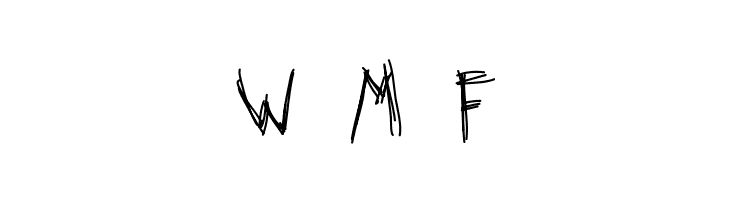
( Fonts by www.lars-manenschijn.nl )
A bold, brushstroke-style font with a dynamic and artistic appearance.
( Fonts by Dave Kellam - Brian Stuparyk - www.eightface.com )
A bold, distressed font with a fiery, energetic style.
( Fonts by Greg Meronek - GregoryFonts )
A bold, playful font with a hand-drawn, dynamic style.
( Fonts by Andrew Hart - dirt2.com )
A bold, playful font with a hand-drawn, informal style.
( Fonts by Jens R. Ziehn - www.filmhimmel.com )
A bold, jagged font with a retro, sci-fi aesthetic and dynamic energy.
( Fonts by www.waltervelezart.com )
A bold, angular font with a lightning-like, energetic design.
( Fonts by Harold Lohner - www.haroldsfonts.com )
A bold, playful font with high contrast and unique negative space design.
A bold, dynamic font with tilted characters enclosed in squares, offering a modern and playful style.
A bold, heavy oblique font with a dynamic and energetic style.
A bold, italicized font with a modern and energetic style.
A bold, italic font with rounded, smooth characters and a dynamic style.
A bold, condensed italic font with angular lines and dynamic style.
A bold, offset oblique font with a dynamic, three-dimensional style.
( Fonts by Steve Ferrera )
A bold, medieval-inspired font with dynamic, twisted characters.
A dynamic and expressive italic font with sharp, angular edges and varying stroke thickness.
A bold, cursive font with a playful and energetic style.
( Fonts by Thomas Ledin - tomledin.com )
A sketch-like, hand-drawn font with an energetic and expressive style.
( Fonts by www.junkohanhero.com )
A chaotic, grunge-style font with splattered, energetic brushstrokes.
( Fonts by Tom Raaijmakers )
A bold, handwritten marker-style font with a casual, dynamic look.
A bold, shadowed font with a playful, three-dimensional style.
( Fonts by Miguel Rios - miguelrios.com.mx )
A bold, handwritten font with an energetic and playful style.
A playful, casual handwritten font with a youthful and energetic vibe.
( Fonts by Rodrigo German - RASDESIGN )
A bold, hand-drawn font with a sketch-like, energetic style.